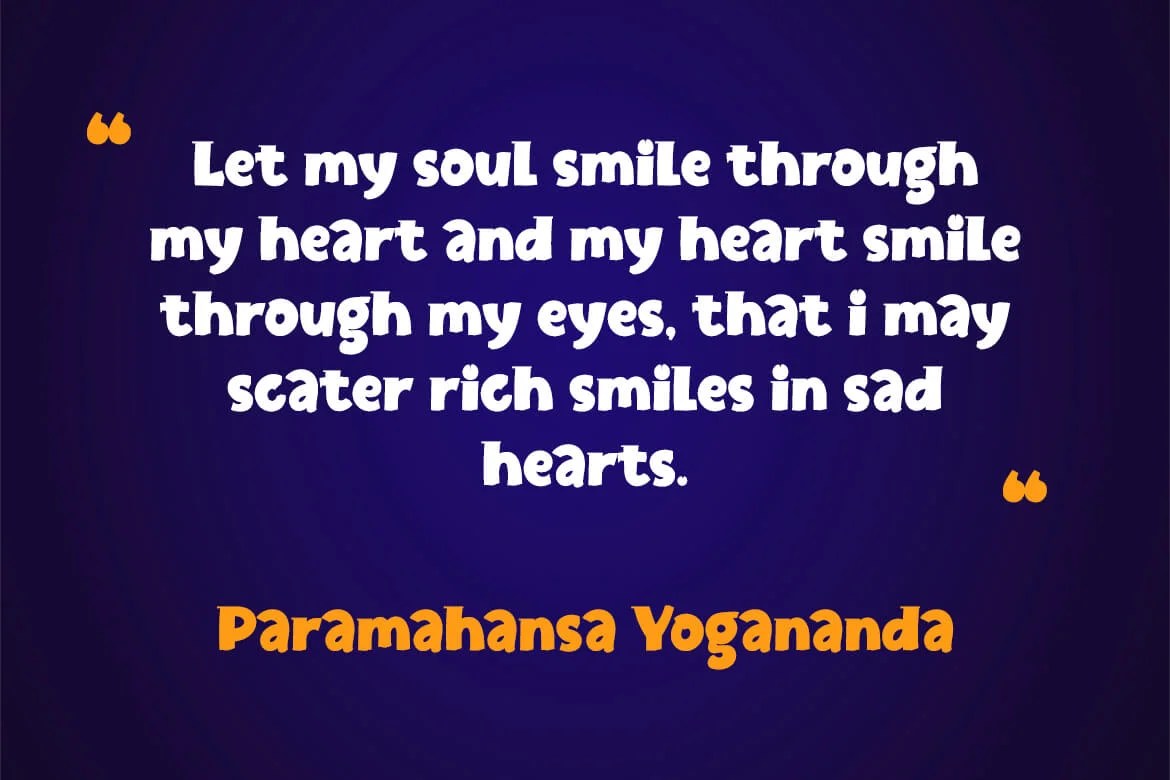
Bold fonts for quote graphics work differently than script or handwriting styles — instead of feeling personal and handmade, they’re built to feel like a statement. Here are six Twinletter display fonts with that kind of bold, declarative presence, each with a slightly different personality.
A quote graphic built around bold display type reads as confident and declarative rather than soft or personal — the visual equivalent of someone stating something rather than confiding it. Bold typography is widely recommended for social media quotes, announcements, and promotional messages precisely because it captures attention as users scroll through a crowded feed. That distinction matters for fonts for quote graphics used in brand messaging, motivational content, or any post meant to feel authoritative rather than intimate.
Jeenull — described as “distinctively appealing” with a “thick character,” suited to quotes that need real visual weight.
Dino Jumps — a “fun” typeface described as “attractive, gorgeous, and funny,” good for lighter, more playful quote content.
Weroth — a “lovely, eye-catching” font built to work across “informal or formal” contexts, and across child, teen, and adult-themed content.
Good Castyll — described with a “laid-back, unique feel” and “genuine hand touch,” suited to a quote that wants warmth without going fully script.
Allay — described as “distinctive and appealing” with an “innovative, entertaining, and unmistakably aesthetic” impression, and built with standard ligatures for other-language use.
Thertole — a “dramatic” typeface with a “rock-inspired design,” the boldest and most intense option for a quote meant to hit hard.
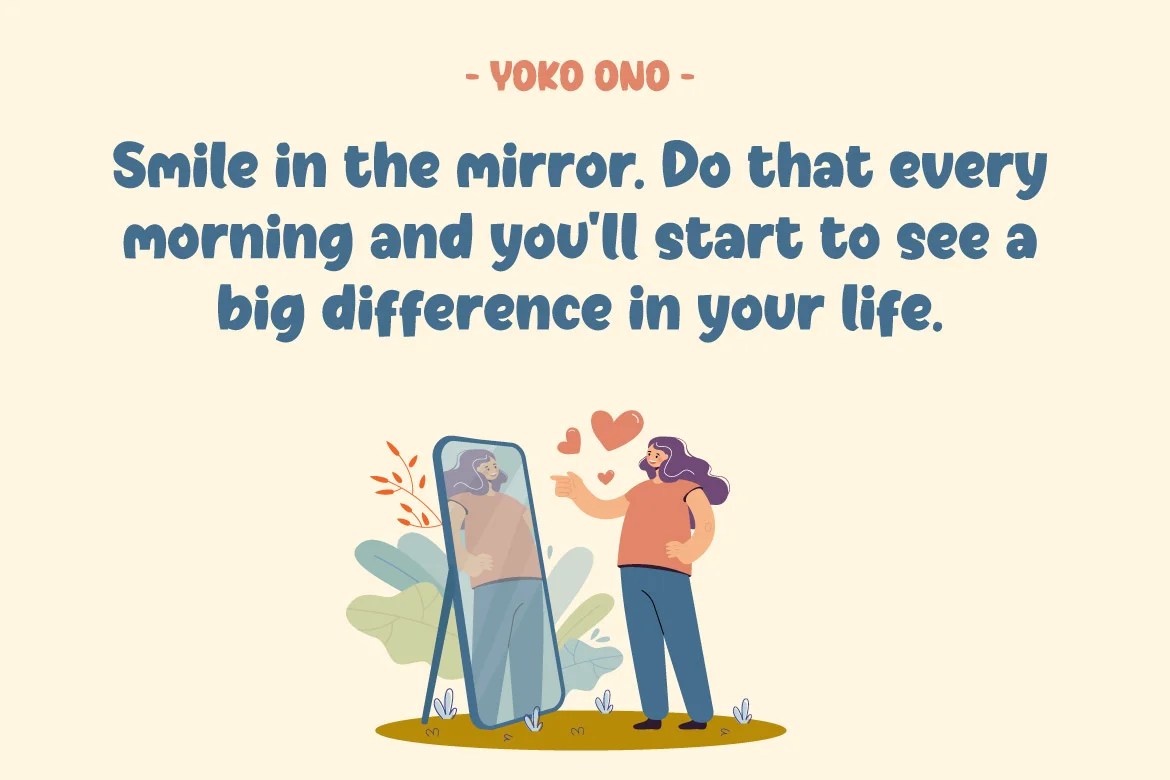
Beyond those individual leanings, all six fonts for quote graphics share the same broader use case and feature set. Twinletter positions all of them for games, sporting events, branding, banners, posters, movie titles, and book titles — so any of the six can extend from a quote graphic into a brand’s wider content system.
Since all six fonts for quote graphics come from the same product generation, the fastest way to narrow it down is to drop your actual quote text into two or three type testers and compare directly.
How is this different from a handwritten or script quote font? Bold display fonts for quote graphics read as declarative and confident rather than personal or handmade — a better fit for brand messaging and statement content than for a warm, intimate quote card.
Can these fonts be used for anything besides quote graphics? Yes — all six are also positioned for games, sporting events, branding, banners, posters, movie titles, and book titles, alongside quote-style content.
Do these fonts support languages other than English? Yes, all six fonts for quote graphics include multilingual support across 19 European languages, making them usable for international campaigns.